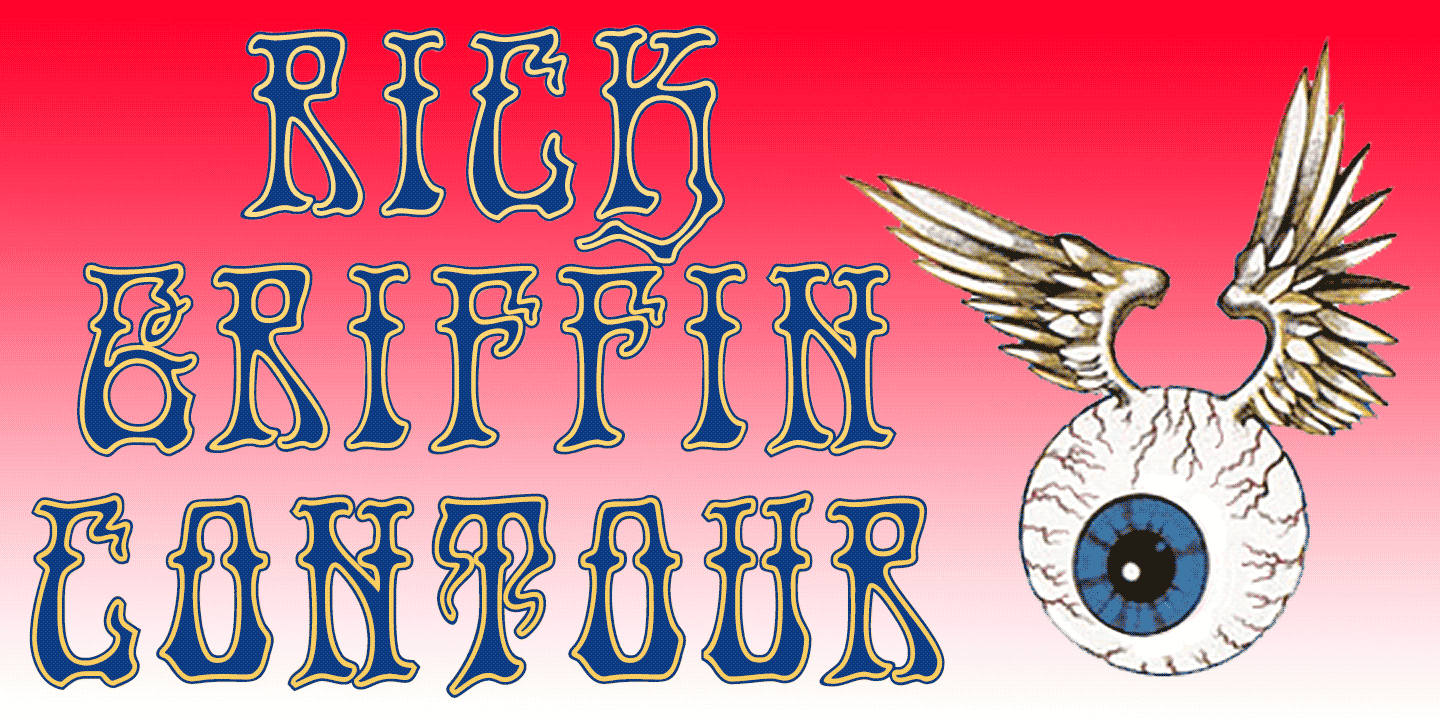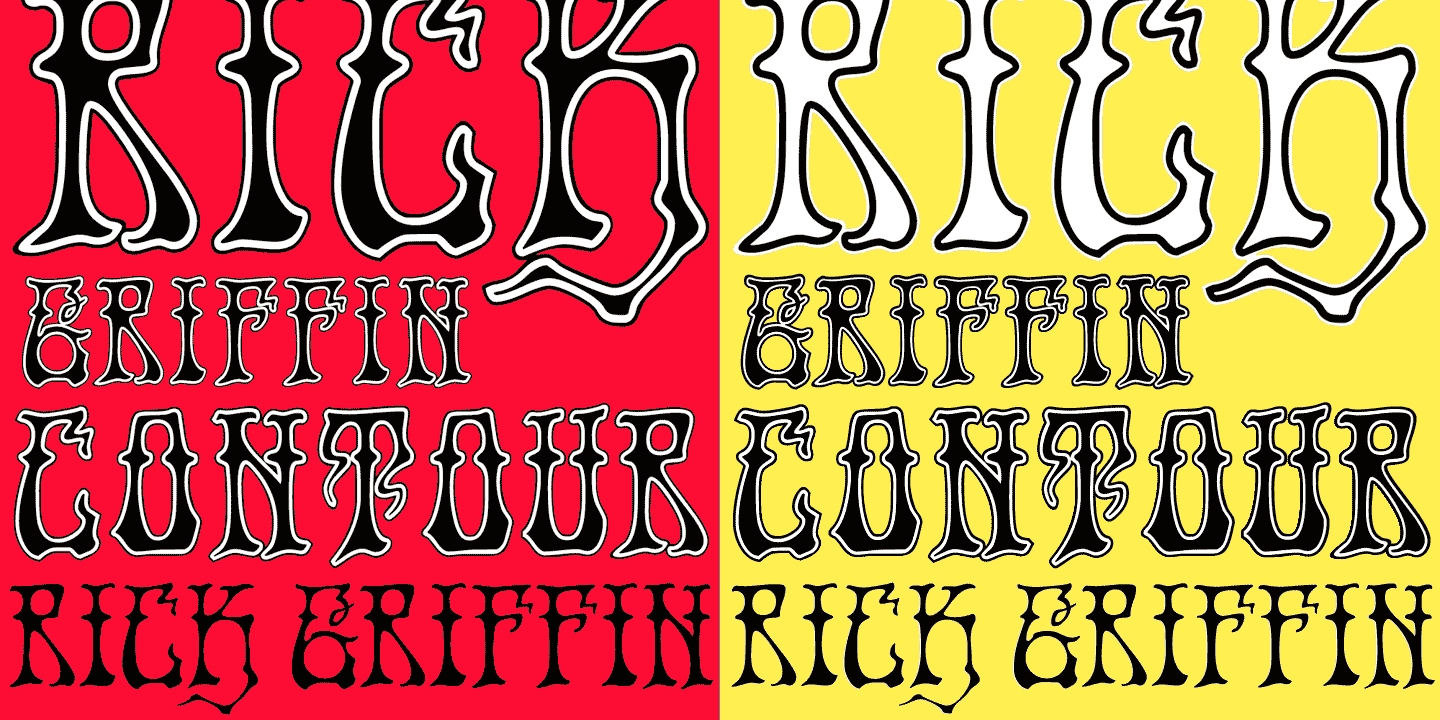
Rick Griffin
About Rick Griffin
The Rick Griffin fonts are based on the 1960s psychedelic poster lettering of the Californian artist. Rick Griffin is the regular font without outlines. The Rick Griffin Contour font has the additional outline characteristic of many Griffin…